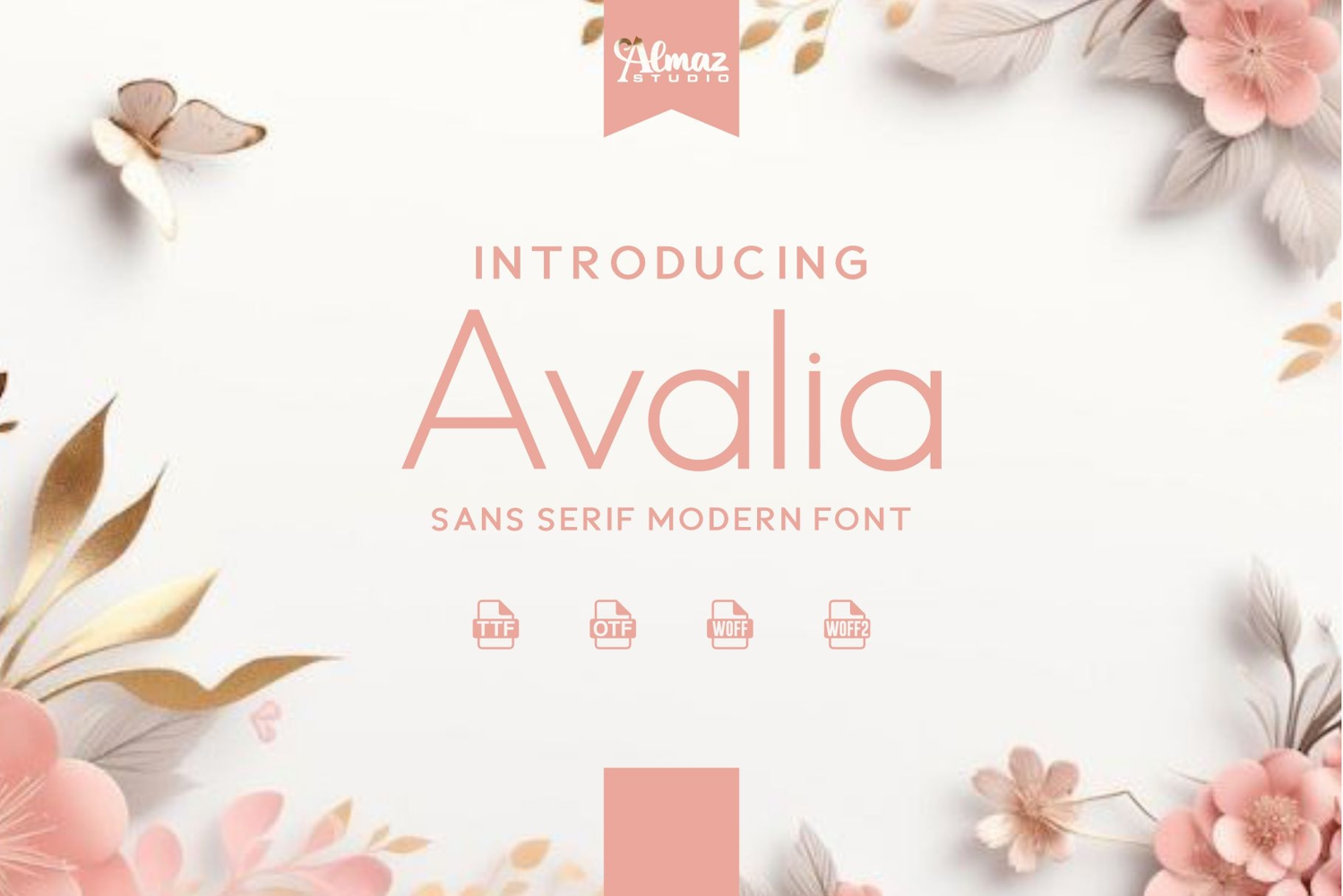
Avalia
Avalia is a modern sans serif font with a soft, elegant, and minimalist style. It features clean lines, gentle curves, and well-balanced proportions that create a graceful and refined appearance. The font conveys a sense of warmth and sophistication while maintaining excellent readability.
Avalia is perfect for wedding designs, beauty and fashion branding, lifestyle projects, invitations, social media content, packaging, and editorial layouts. Its delicate yet modern character makes it ideal for designs that aim to feel feminine, calm, and premium.